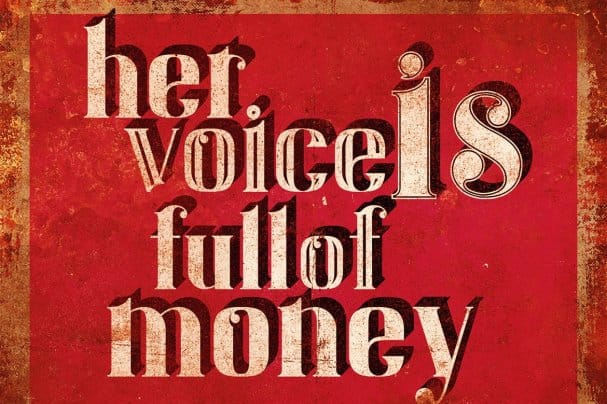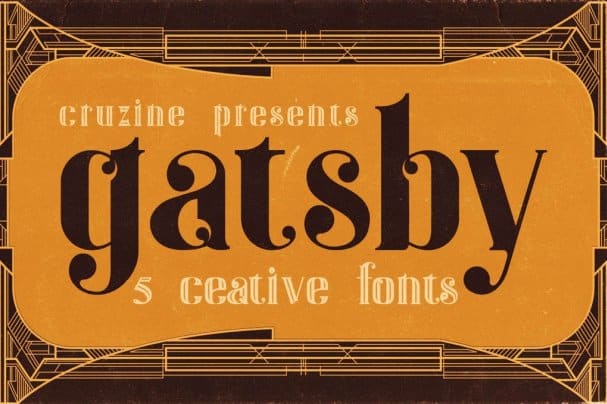
Gatsby Art Deco Font
Gatsby Art Deco Font is widely famous for its text generation function. This typeface is also present inside Microsoft word and it is present inside google font. But, that could be a clean looking like a terrific way to offer you the results you need. It is been involved as dubai font desire and it’s also called out of region fish fonts.
It is one of the more conscious fonts like pixel lab fonts designs as it is regularly completed in snapshots. This desired font is used to create a visionary experience, and artists apply it to the same time as taking walks with past related instances. Gatsby Art Deco Font Free It uses serifs to generate a present-day feeling. It’s miles a spectral font that has been primarily based honestly in reality totally on rectangular capitals.
It’s miles an energetic font as a way to provide up to be had effects. It makes a bungee font and has regularly been completed in business enterprise designs similar to yanone kaffeesatz font, this font makes a pinnacle-notch emblem font. This font is a top-notch font that uses clean photo shapes like blackletter font. Its spotless arrival makes it a first-rate opportunity for posters, layouts, emblems, and posters.
Download The font format, like bourbon grotesque font each thick and slim blow to offer a seen enchantment. It takes an ordinary shape, which gives a top-notch to have an impact on any layout. It makes exquisite brand fonts in case you’re seeking out to create a subject. The lively fashion patterns have an exquisite visible request, giving a selected college appeal